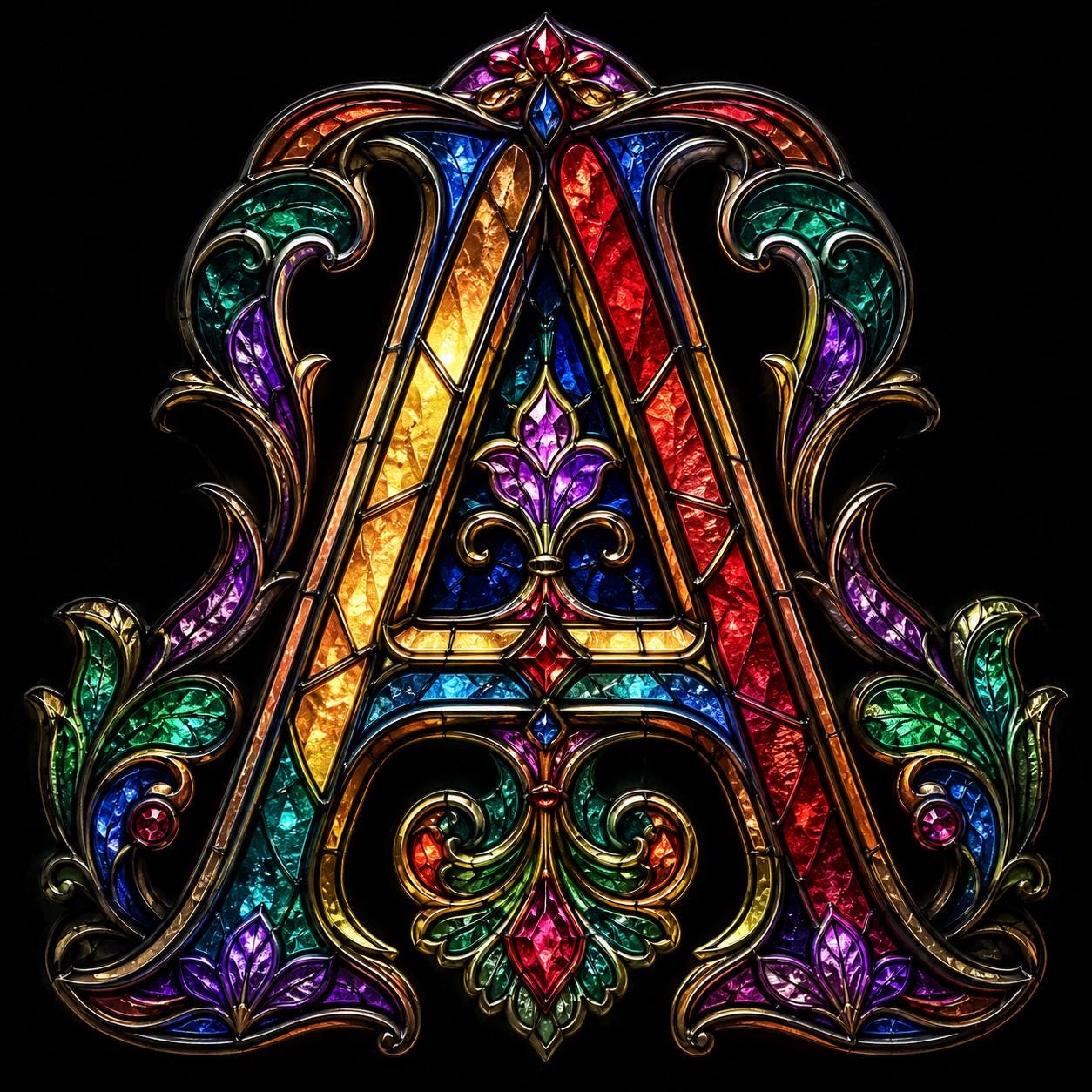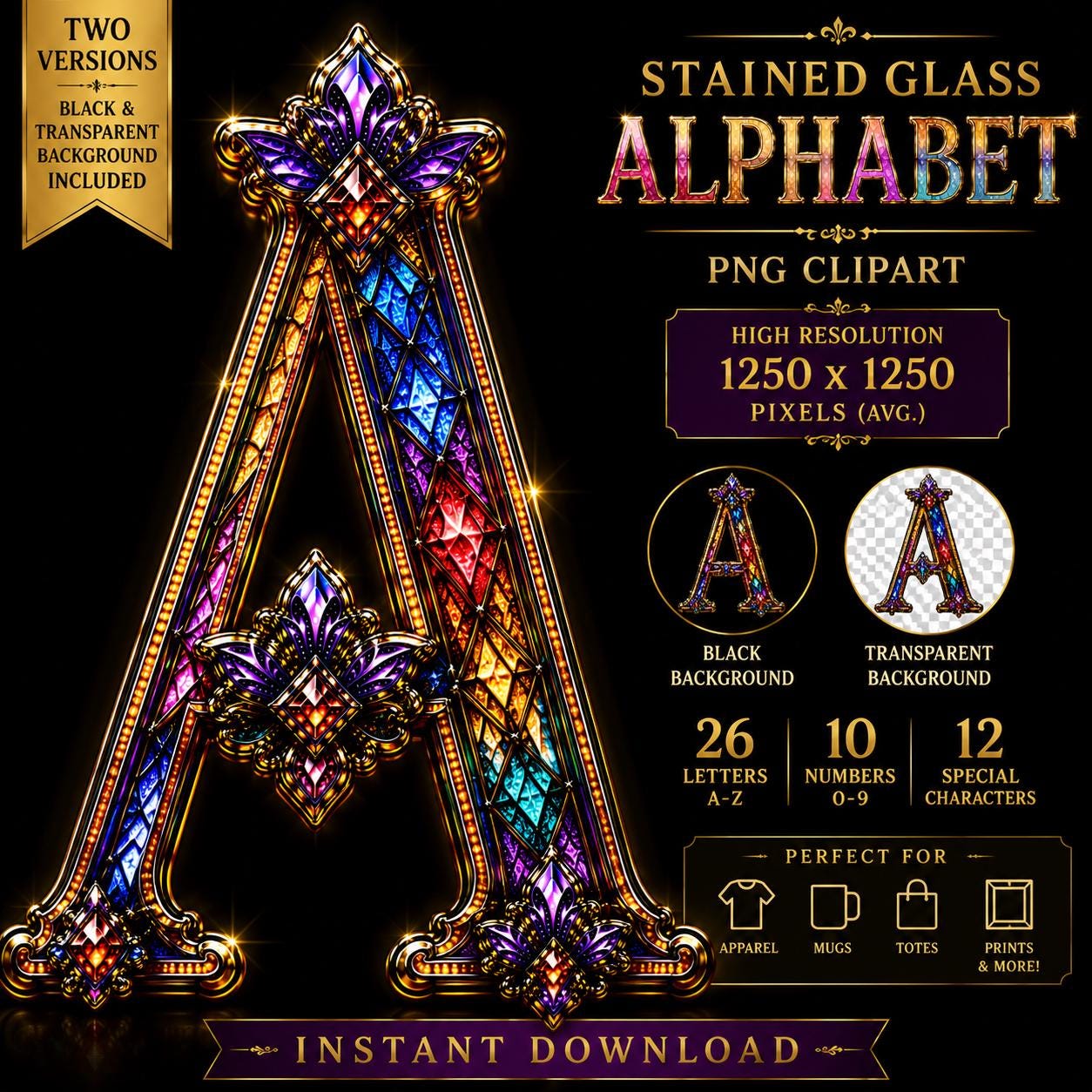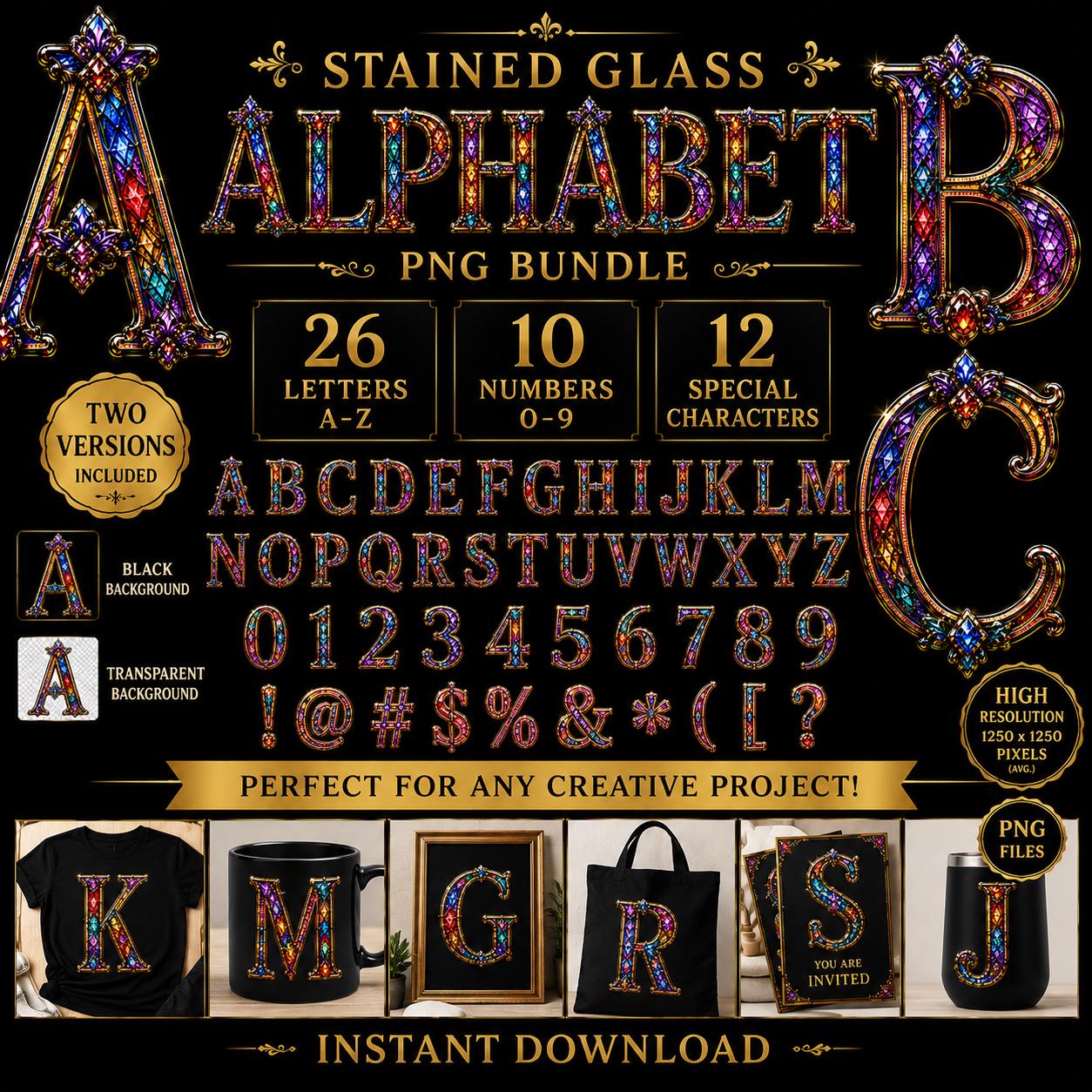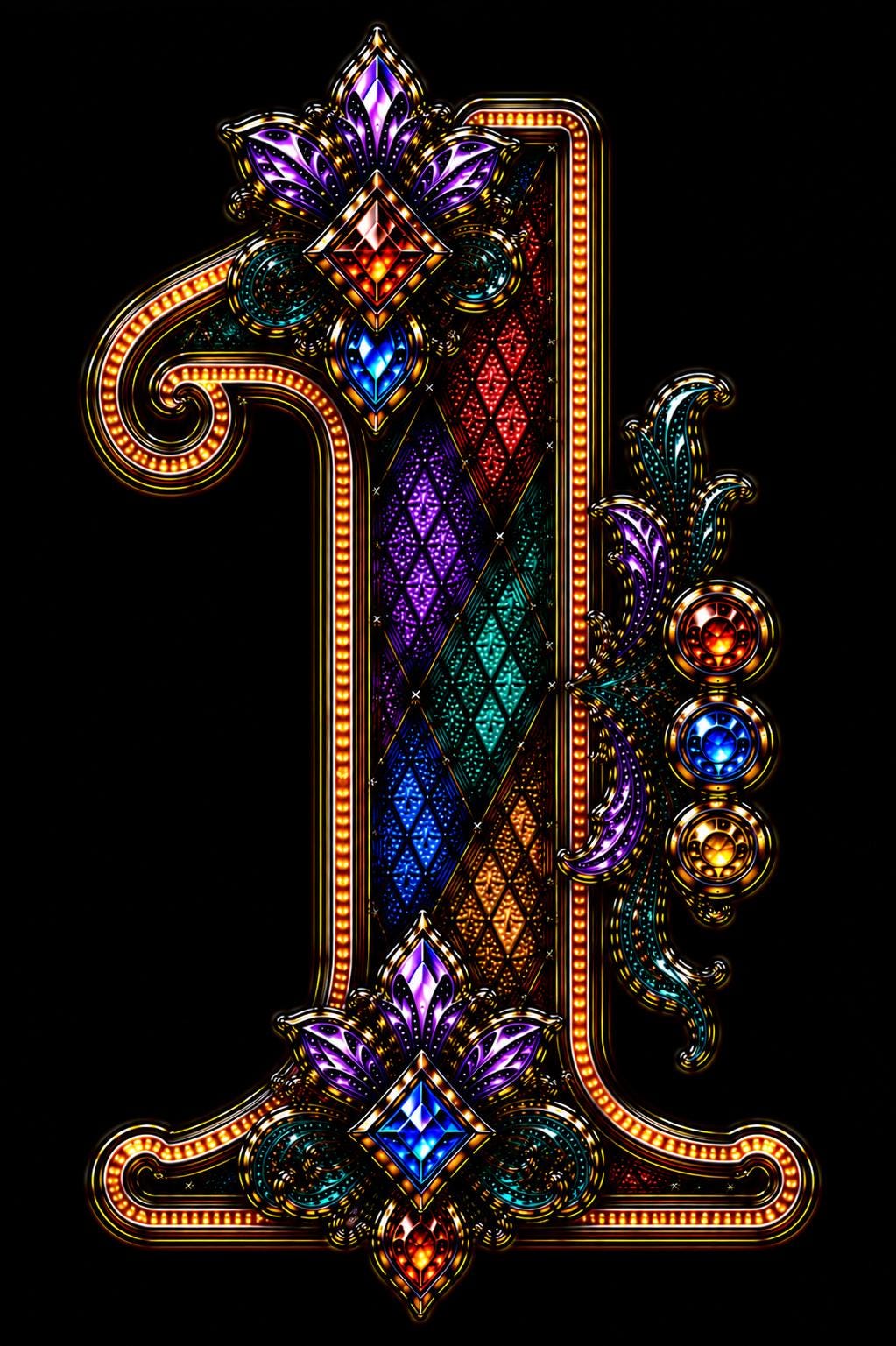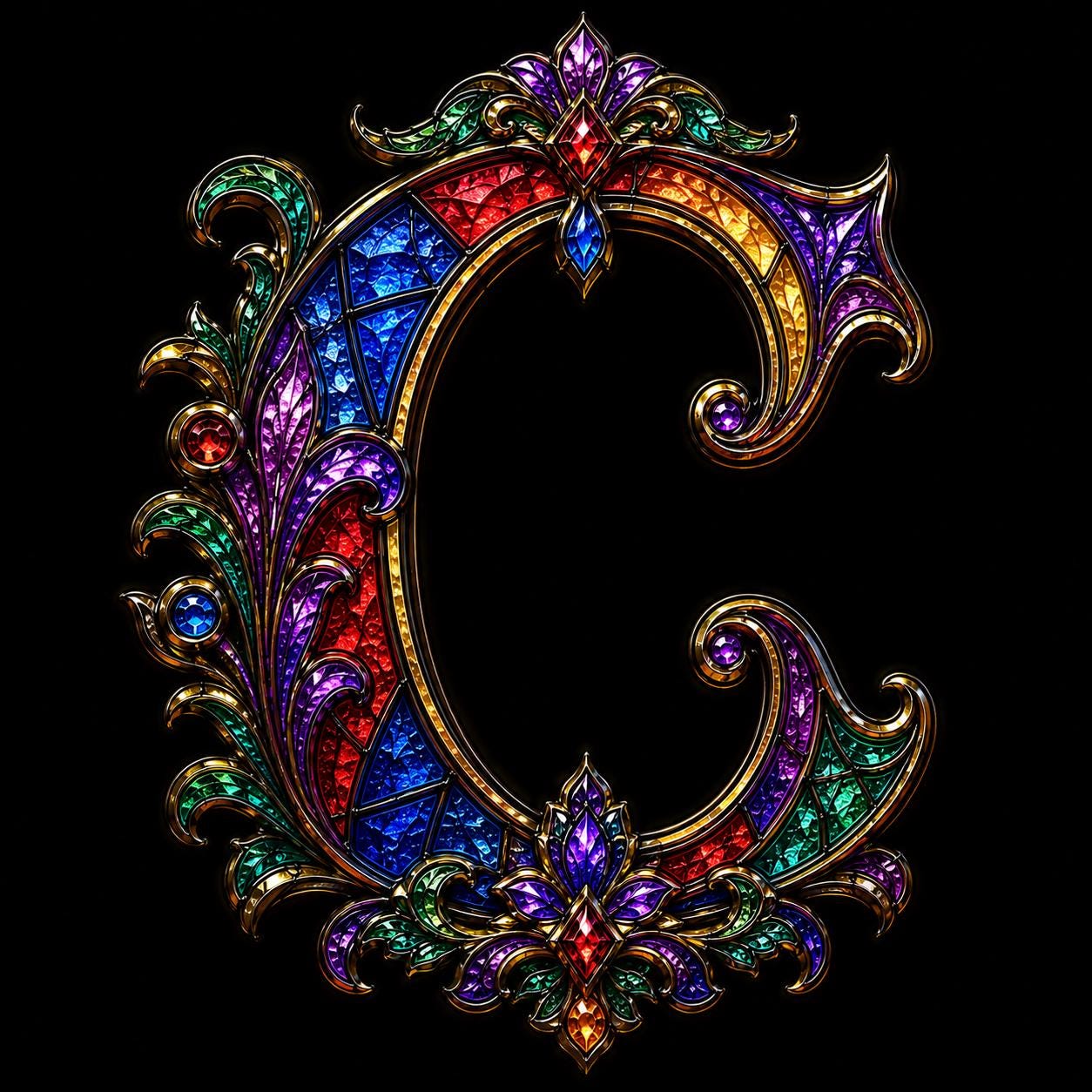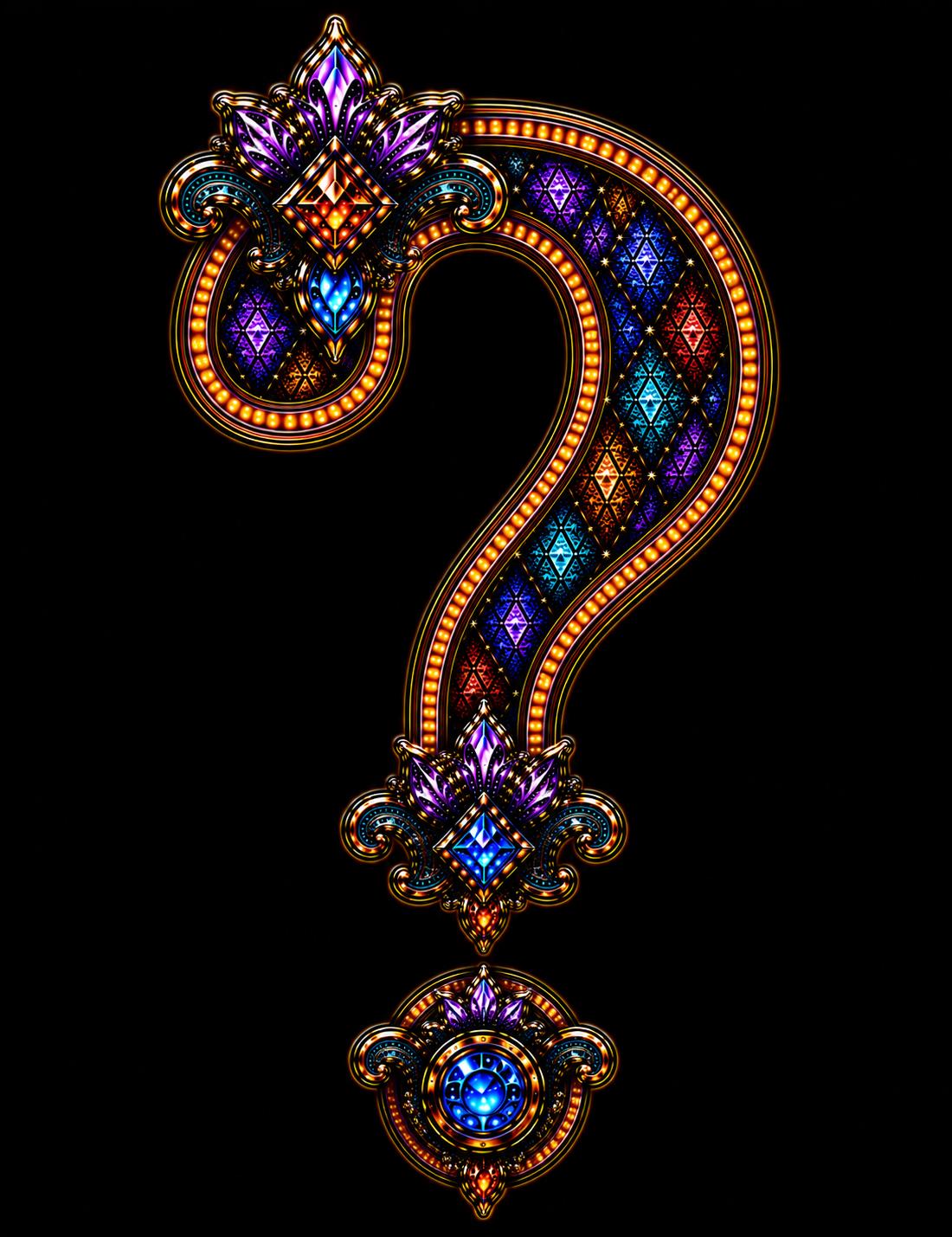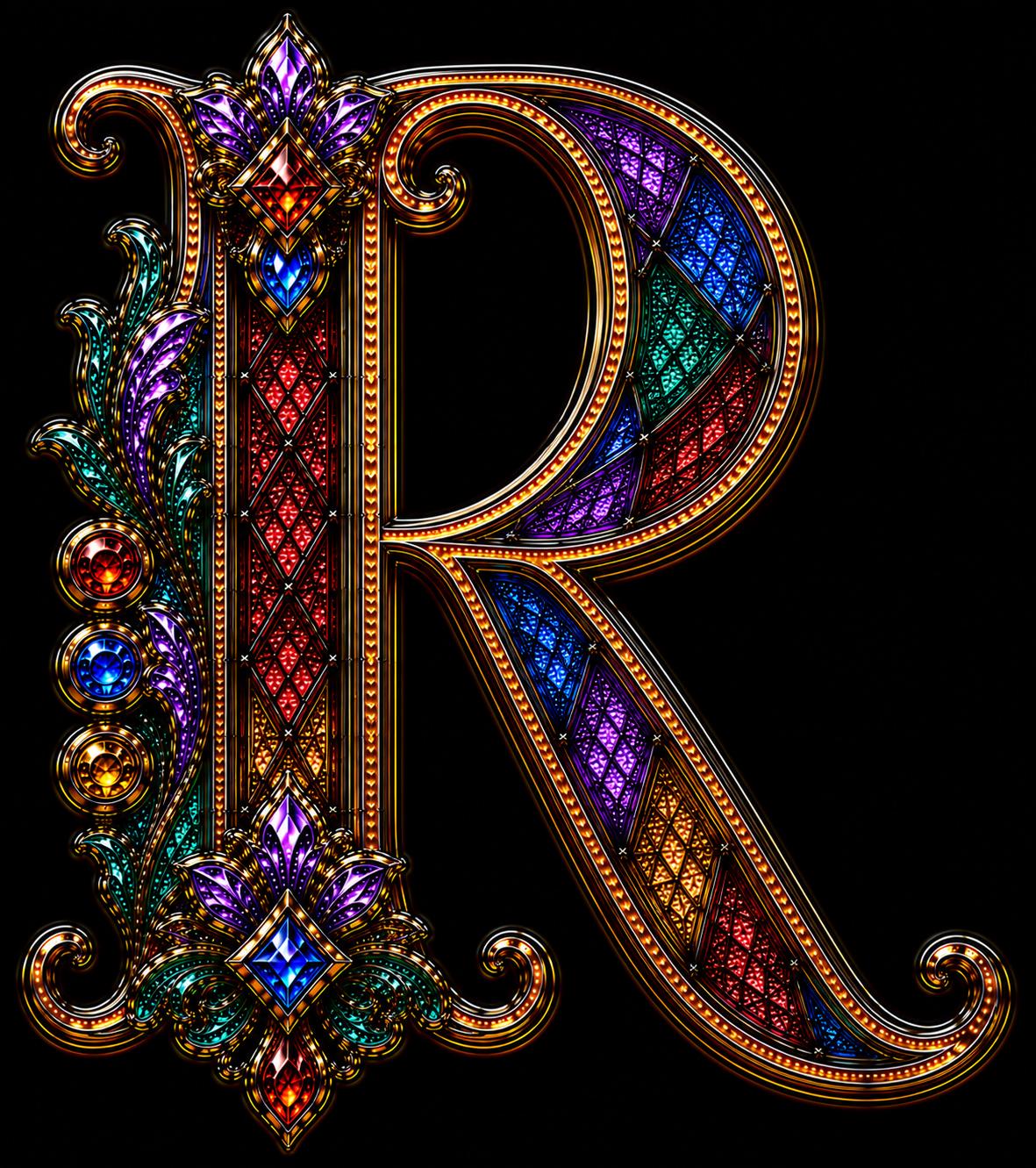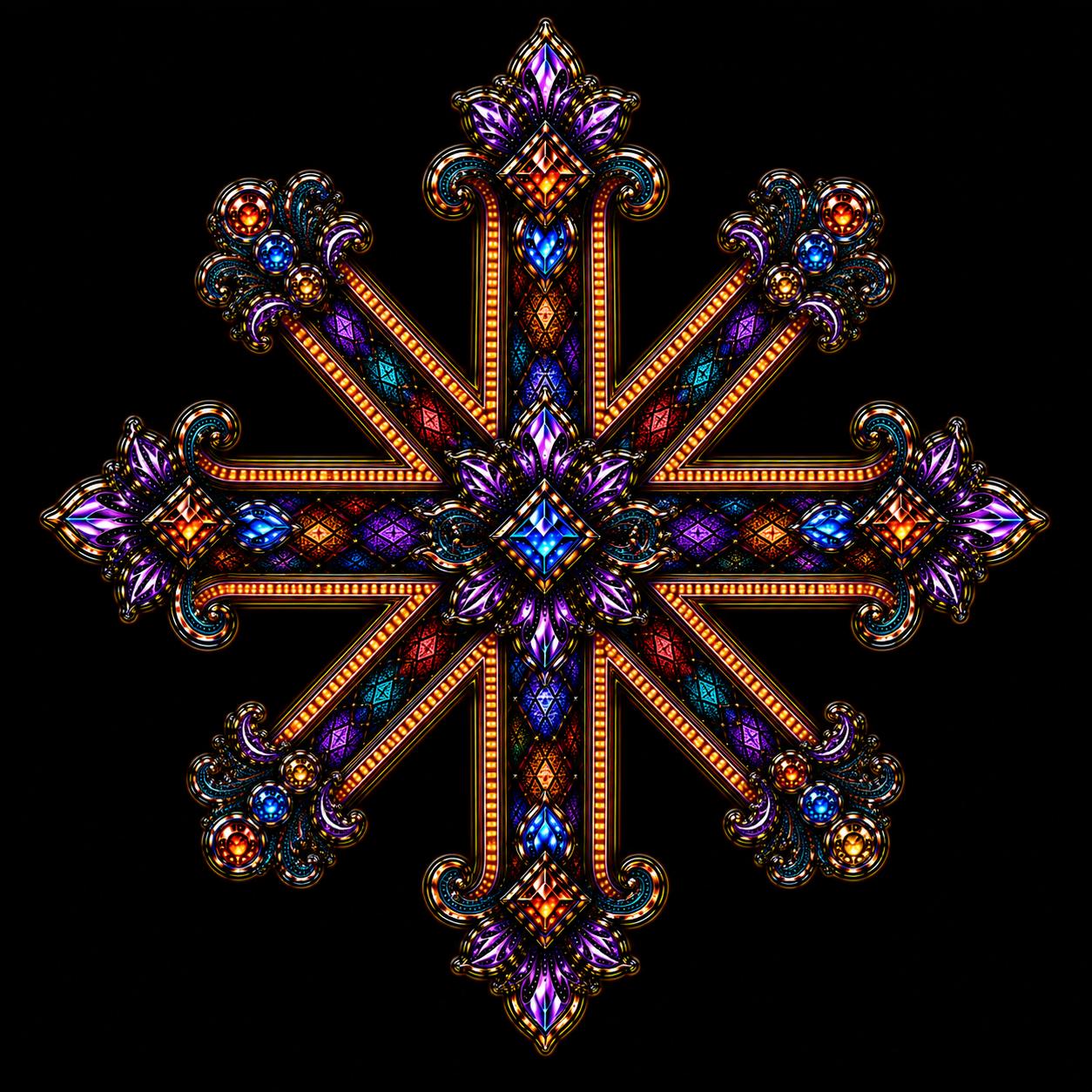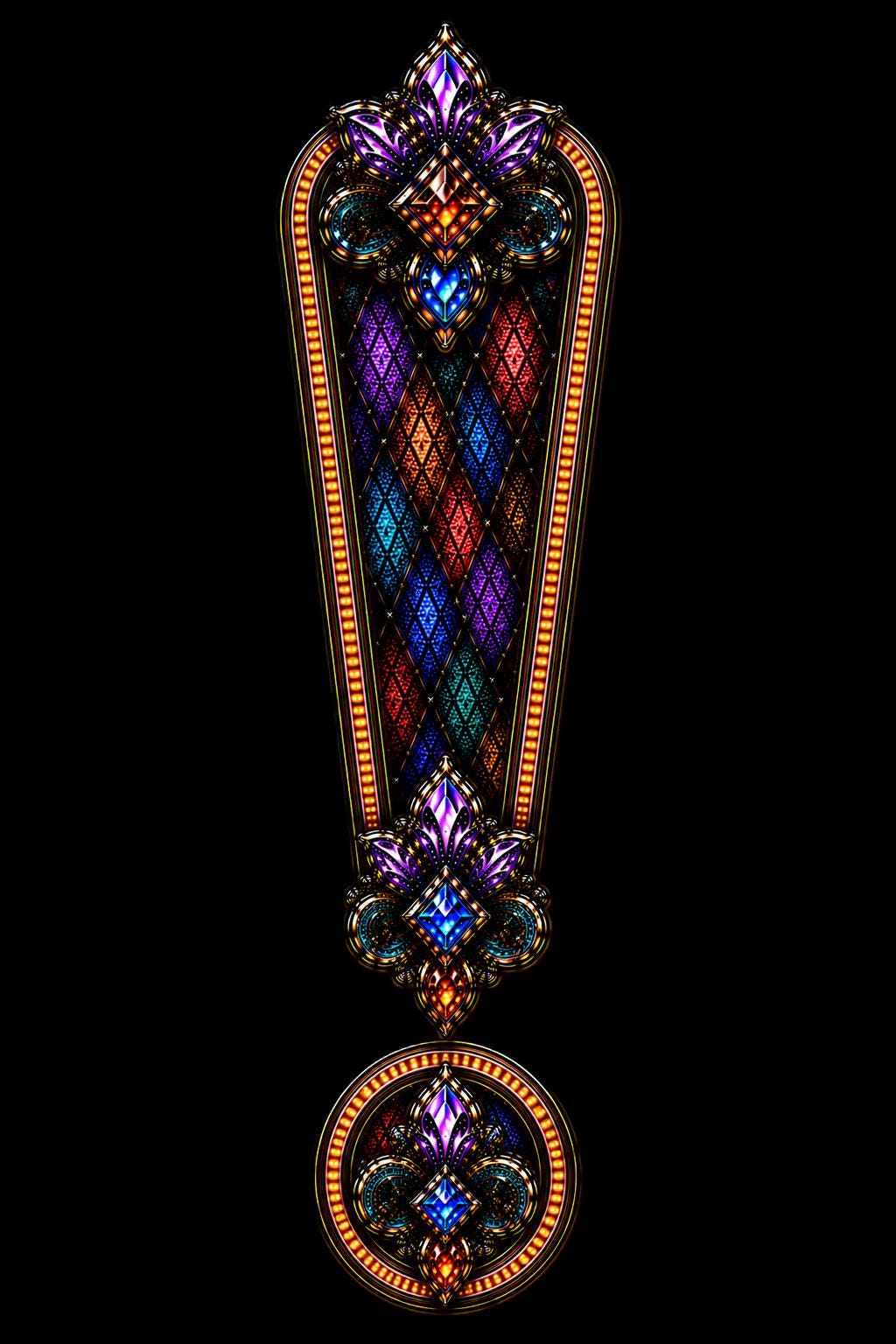
Bring luxury and elegance to your creative projects with this stunning Stained Glass Alphabet PNG Bundle featuring richly detailed gothic-inspired lettering with glowing jewel tones and ornate stained glass styling.
26 Capital Letters (A–Z)
Numbers 0–9
12 Special Characters
Included Characters
Alphabet: A–Z
Numbers: 0–9
Special Characters: ! @ # $ % & * ( [ ? and more
Vibrant jewel-tone stained glass effect
Ornate gothic-inspired typography